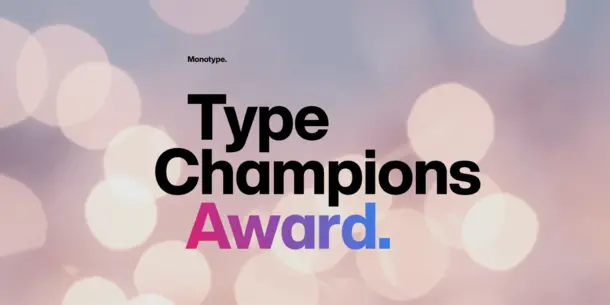
Monotype Announces Winners of Second Annual Type Champions Award
WOBURN, Mass., Nov. 19, 2020 - Monotype today announced the winners of the second annual Type Champions Award, which recognizes and celebrates brands that elevate the value of typography in developing and maintaining brand identities. The winners were selected by a panel of 19 global branding experts who evaluated the role of typography in building brand messages, marketing and advertising efforts, and overall customer experiences.
The 2020 Type Champions include:
- Actual Source
- Adidas
- Australian Centre for the Moving Image
- Baemin Vietnam
- City of Helsinki
- Duolingo
- IBM
- MoMA
- Naturalizer
- Studio Dumbar
Winners will be revealed at Monotype’s Brand Talks Connected virtual event today, which brings together design, marketing and branding professionals to examine trends, learn real-world strategies and find inspiration. To learn more about the 2020 Type Champions and their projects, visit the Type Champions Award site.
The judges panel recorded several notable takeaways about this year’s winners:
- “This years nominations were incredible. I feel honored to have seen such a wonderful display of type use and font creation to further the field and build awareness on what typography can do to bring brands to life.” – Kristine Arth, Founder and Principal Designer, Lobster Phone
- “Typography is both architecture and music. It should explode with clarity and delight, elevating a brand’s voice above an increasingly noisy mess of customer interfaces and experiences. More than any other visual element, typography can be the most potent technology a company has to distinguish itself and deliver its promise to the communities it serves. This year’s winners demonstrate how type can be smartly leveraged by brands – both big and small, neighborhoods and nation-states, local cultural organizations and world culture at large. Congratulations to every single one of the uncommonly literate designers who have imagined, created, fought, worked insanely hard, imagined, created, fought, and worked insanely hard again to bring this most important craft to life.” – Brian Collins, Chief Creative Officer and Founder, COLLINS
- “We received nominations from around the world this year, with true diversity across regions, cultures, industries, and brand sizes. What I love most about the list of 2020 Type Champions is that they cannot be put into one category. Each represents a fantastic and unique example of typographic excellence that works for the brand (or location!) and its specific set of needs.” – Jenn Hilliard, Senior Manager, Brand Development & Strategy, Rocket Mortgage
- “This year, when evaluating work I was looking for a few specifics: expressive elements in type, unique characters that I hadn’t seen before, nuanced detail of the typefaces in either layout or broader use. While the bulk of nominees did not disappoint, the brands we collectively selected stood out for their distinct families and bold personalities.” – Blake Howard, Co-Founder and Creative Director, Matchstic
- “As the world shifts dramatically to digital experiences, the role of typography becomes ever more critical for brands looking to deliver consistent, meaningful experiences. Of the many submissions, our panel selected a set of winners that represent how powerful, albeit varied, the use of type can be in crafting identity.” – Charles Nix, Creative Type Director, Monotype
The 2020 Type Champions Award panel includes:
- Abbott Miller, Partner, Pentagram
- Alejandro Paul, Type Designer and Founder, Sudtipos
- Andy Payne, Global Chief Creative Officer, Interbrand
- Bobby C. Martin Jr., Co-Founder, Champions Design
- Blake Howard, Co-Founder and Creative Director, Matchstic
- Brett Zucker, Chief Marketing Officer, Monotype
- Brian Collins, Chief Creative Officer and Founder, COLLINS
- Charles Nix, Type Director, Monotype
- James Fooks-Bale, Creative Director, Monotype
- Jenn Hilliard, Senior Manager, Brand Development & Strategy, Rocket Mortgage
- Josh Miles, Chief Marketing Officer of SMPS and Host of Obsessed Show
- Kirsten Dietz, Founder and Partner, Strichpunkt Design
- Kristine Arth, Founder and Principal Designer, Lobster Phone
- Mohamed Gaber, Founder, Kief Type Foundry
- Nicole Johnson, Associate Director User Experience, Iconmobile Group
- Patrick Märki, Managing Director, KMS Team
- Perrin Drumm, Head of Publishing, A24
- Rodney Abbot, Senior Partner, Lippincott
- Sherina Florence, Creative Director, Ogilvy